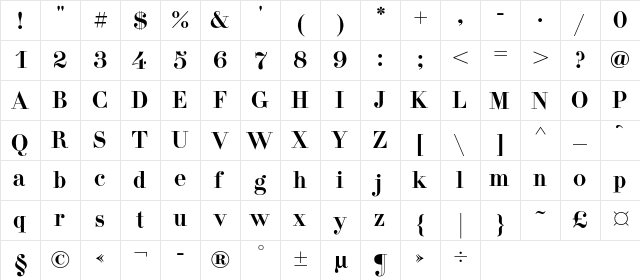
DidonaC Regular
Design Context for DidonaC Typeface
DidonaC is a composed and adaptable typeface that performs quietly and consistently across a wide range of design contexts.